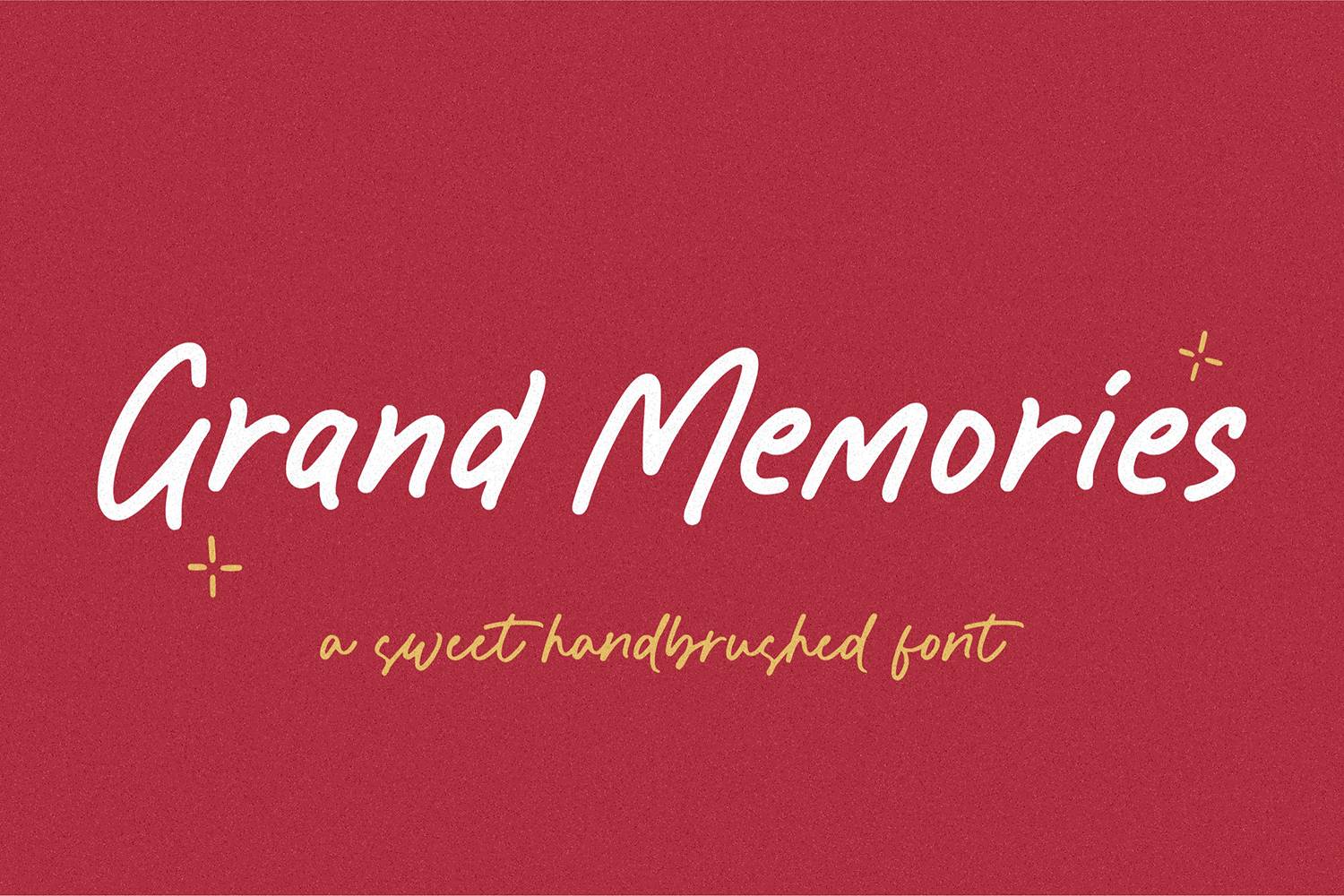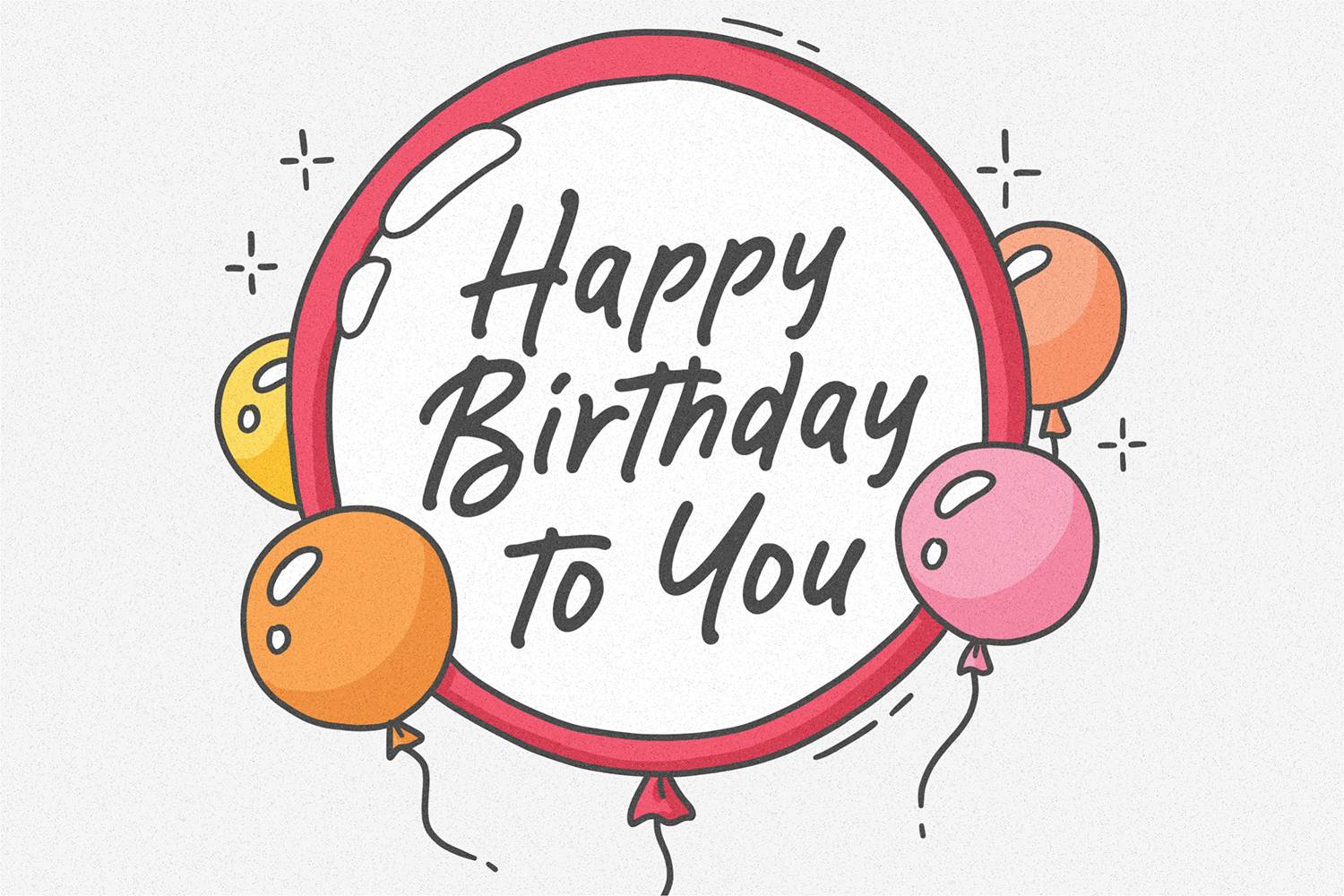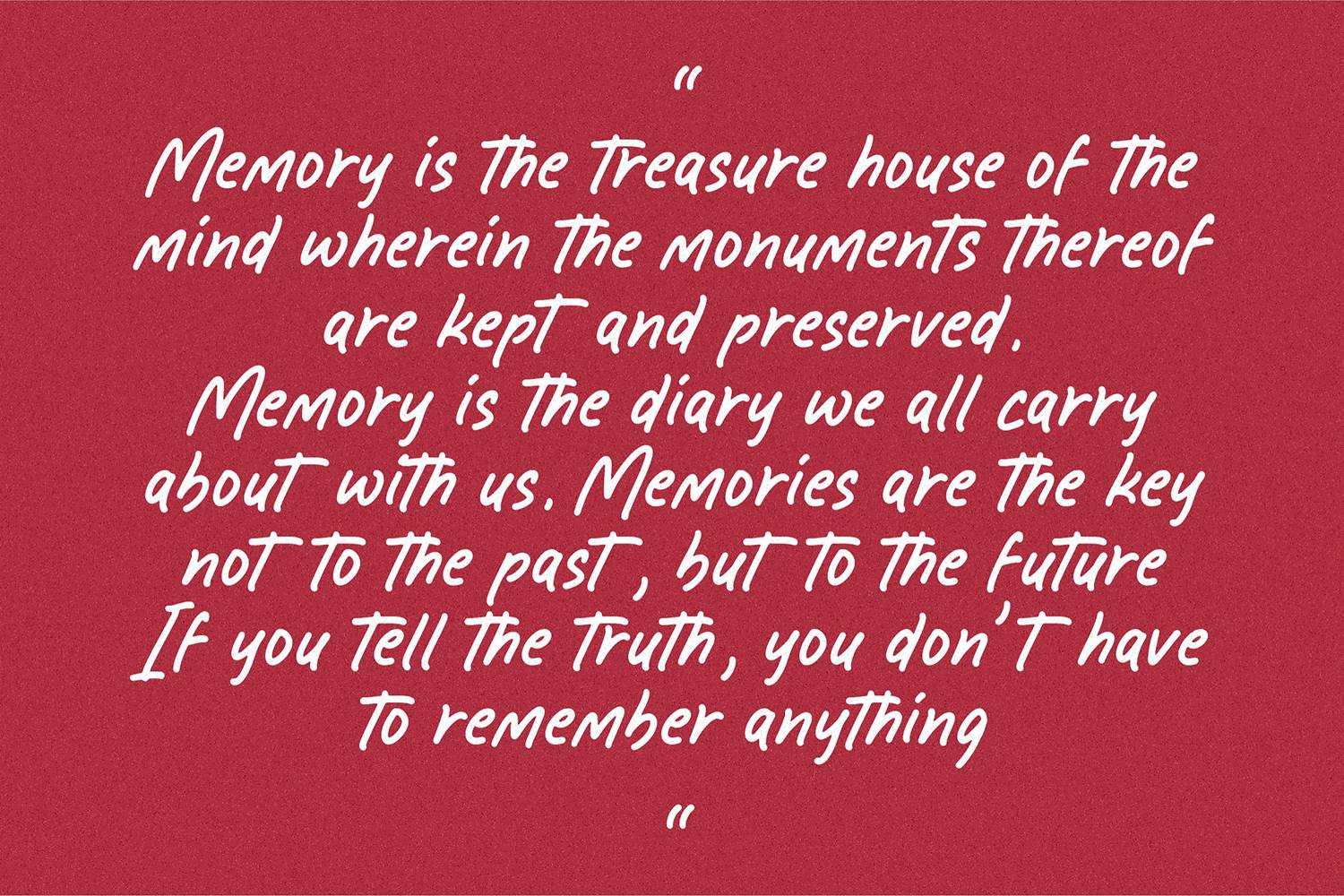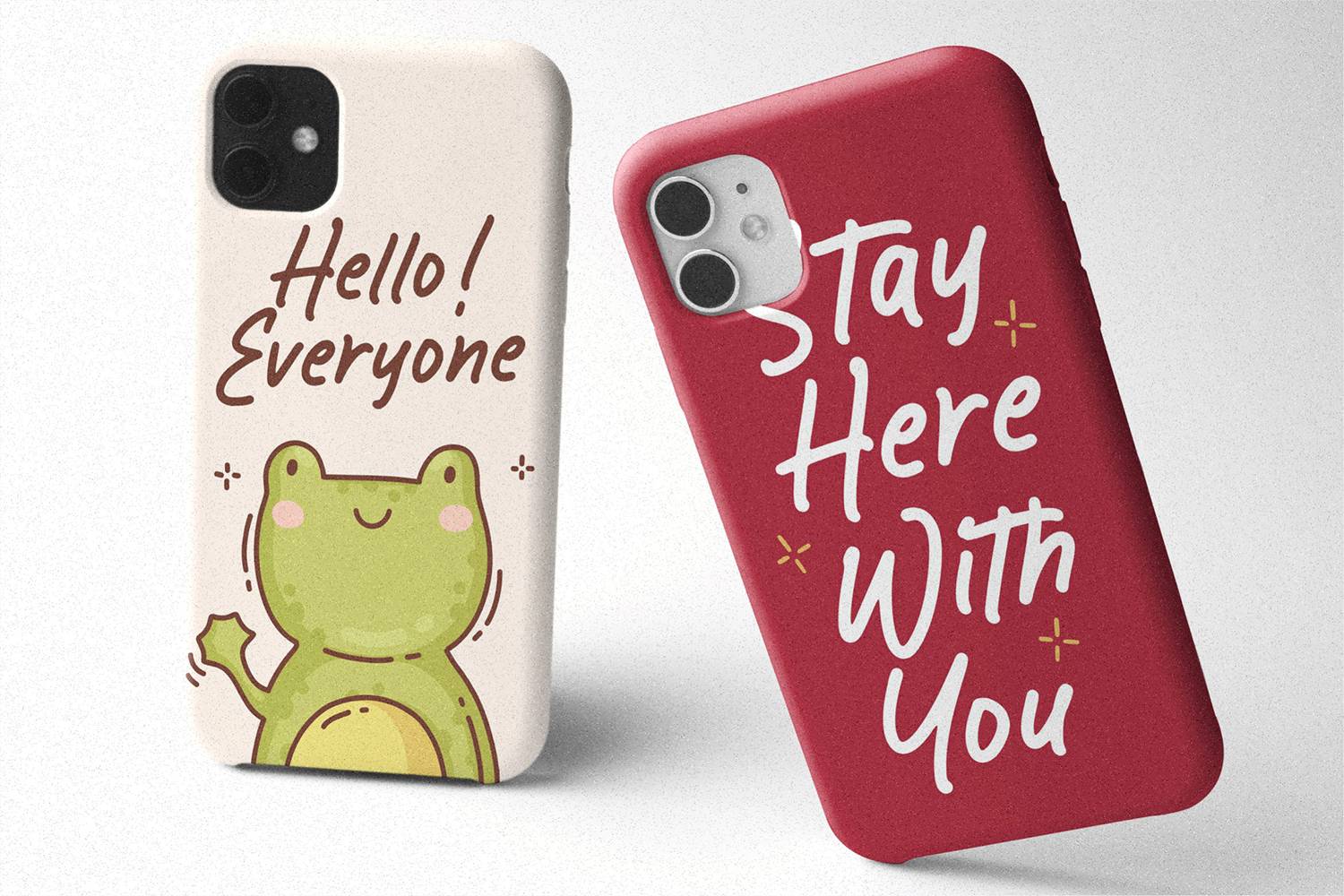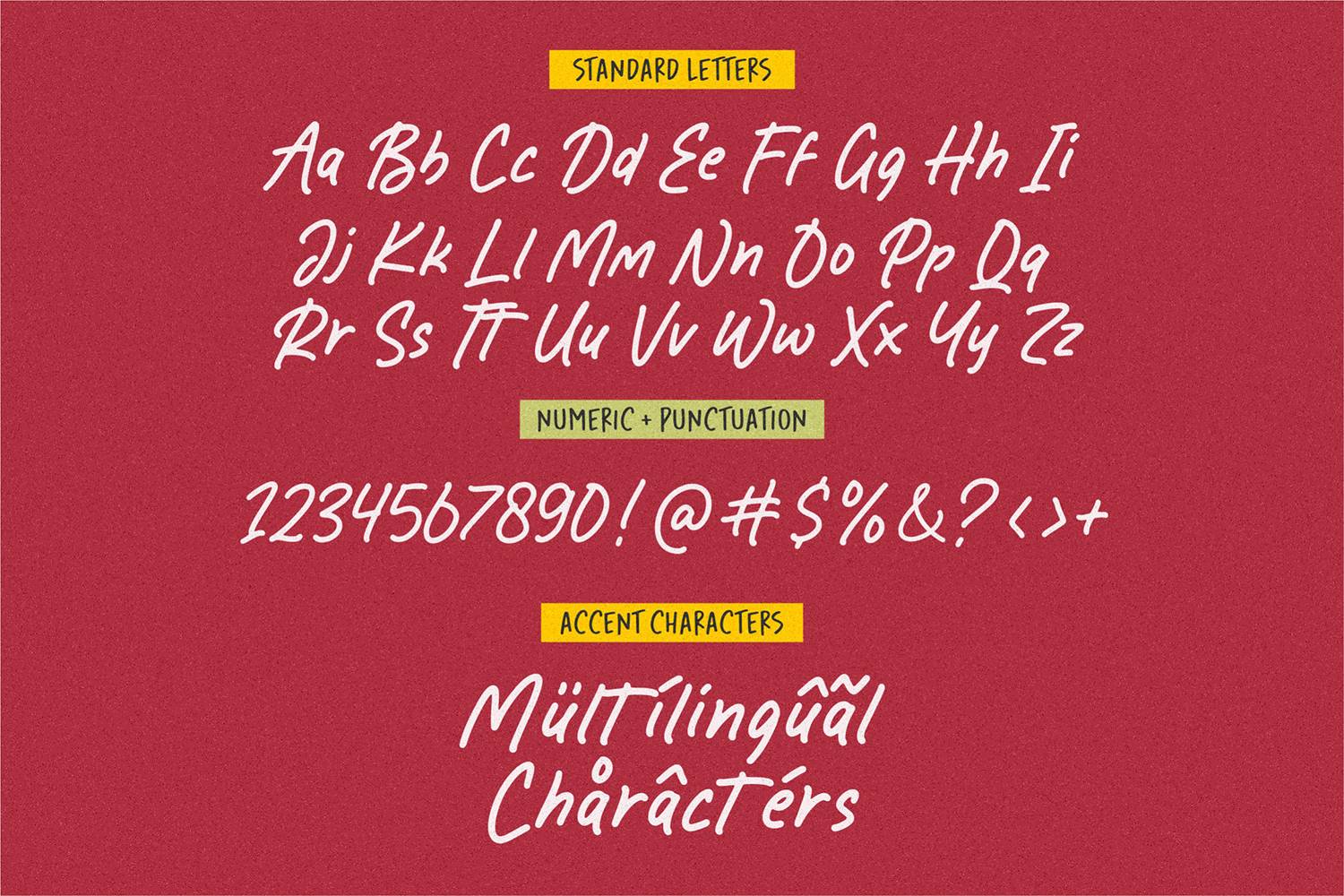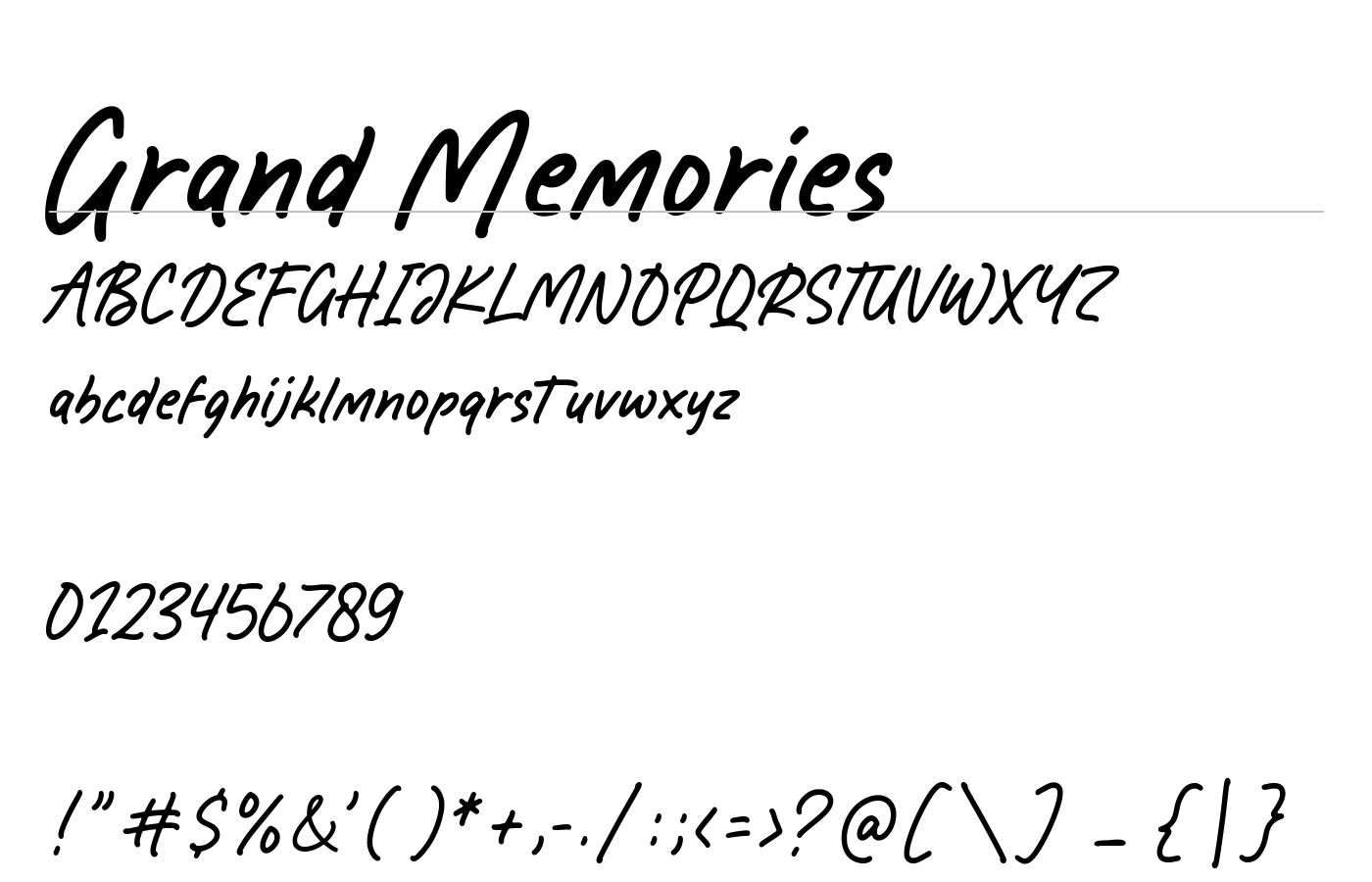
Grand Memories is a lively handwritten script font with a casual and friendly feel. Its smooth, flowing strokes and moderate contrast give it a natural, personal touch, making it perfect for invitations, branding, and any design seeking an approachable yet stylish vibe. This font works well for creative projects needing warmth and personality without sacrificing readability.
Grand Memories Font
About Grand Memories Font